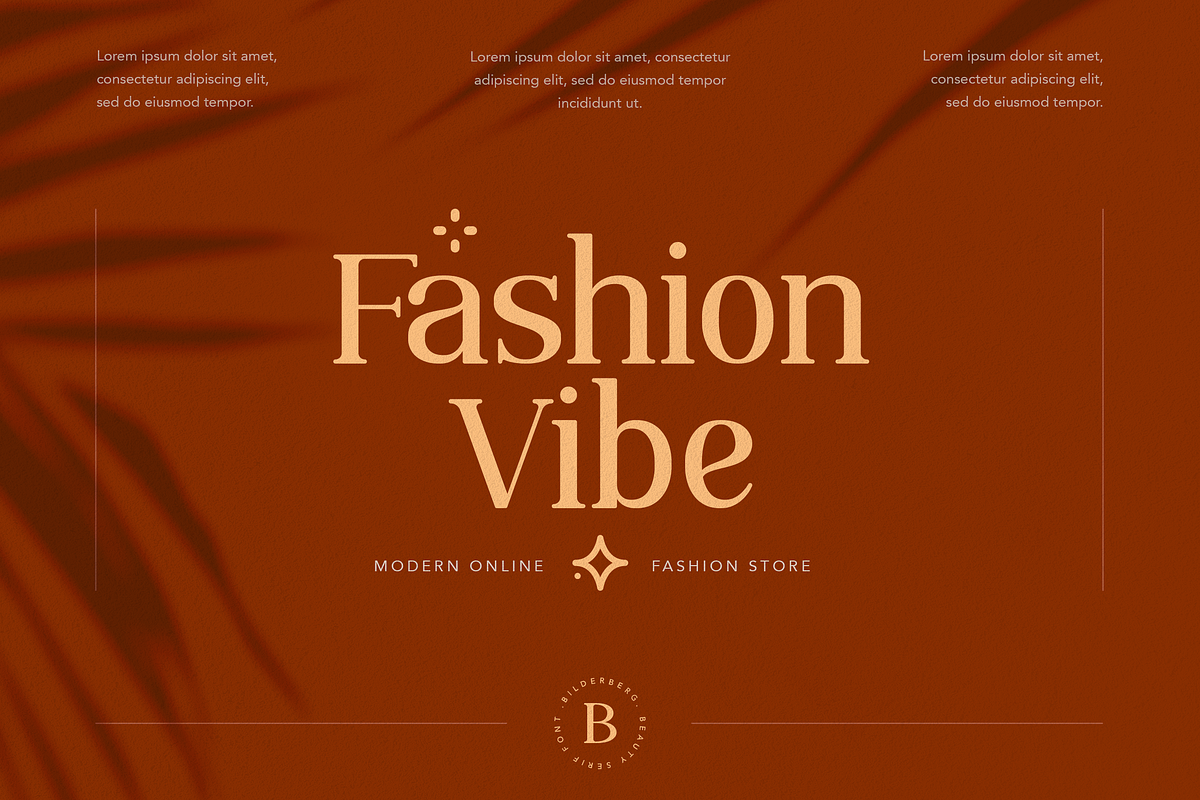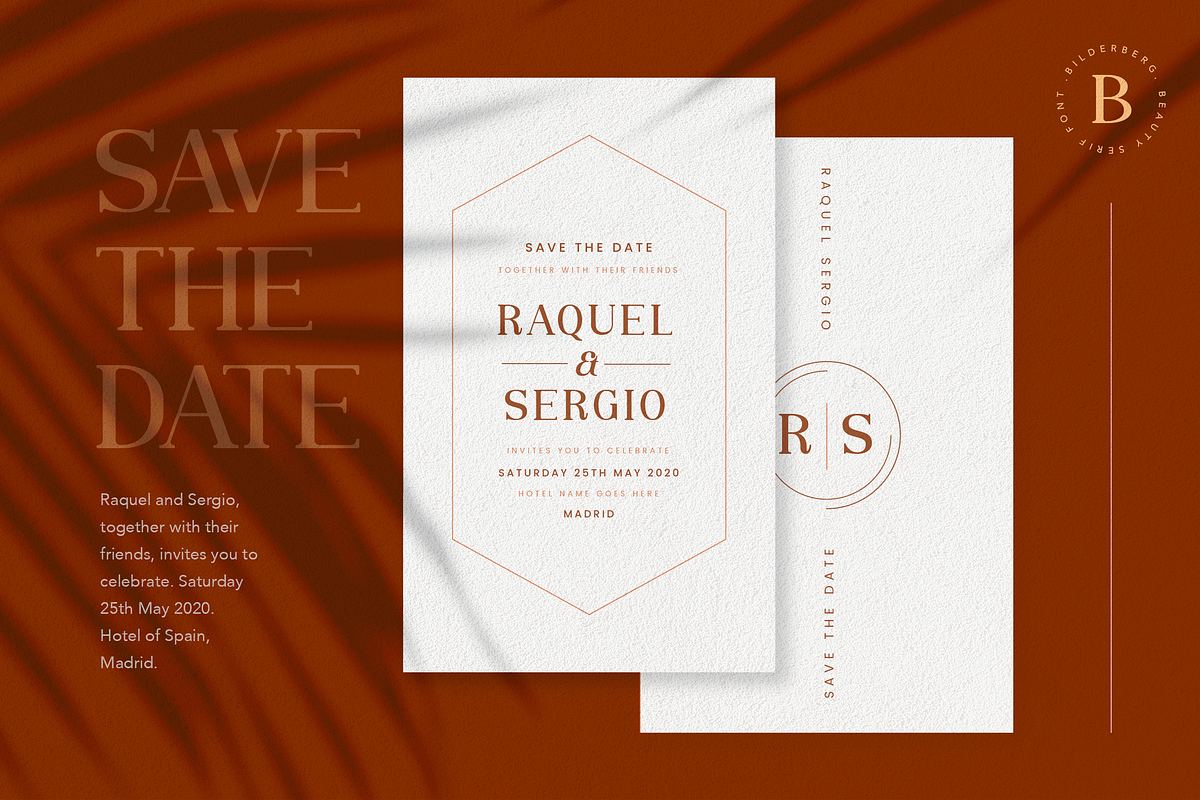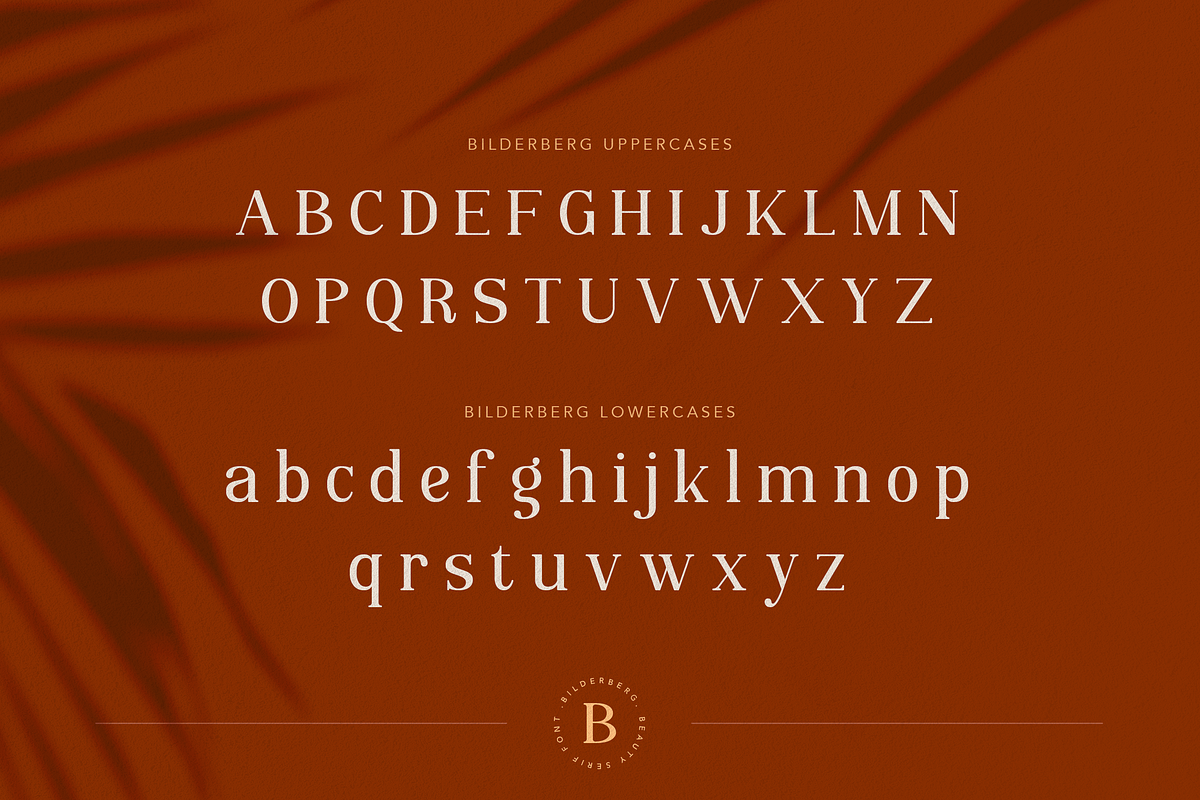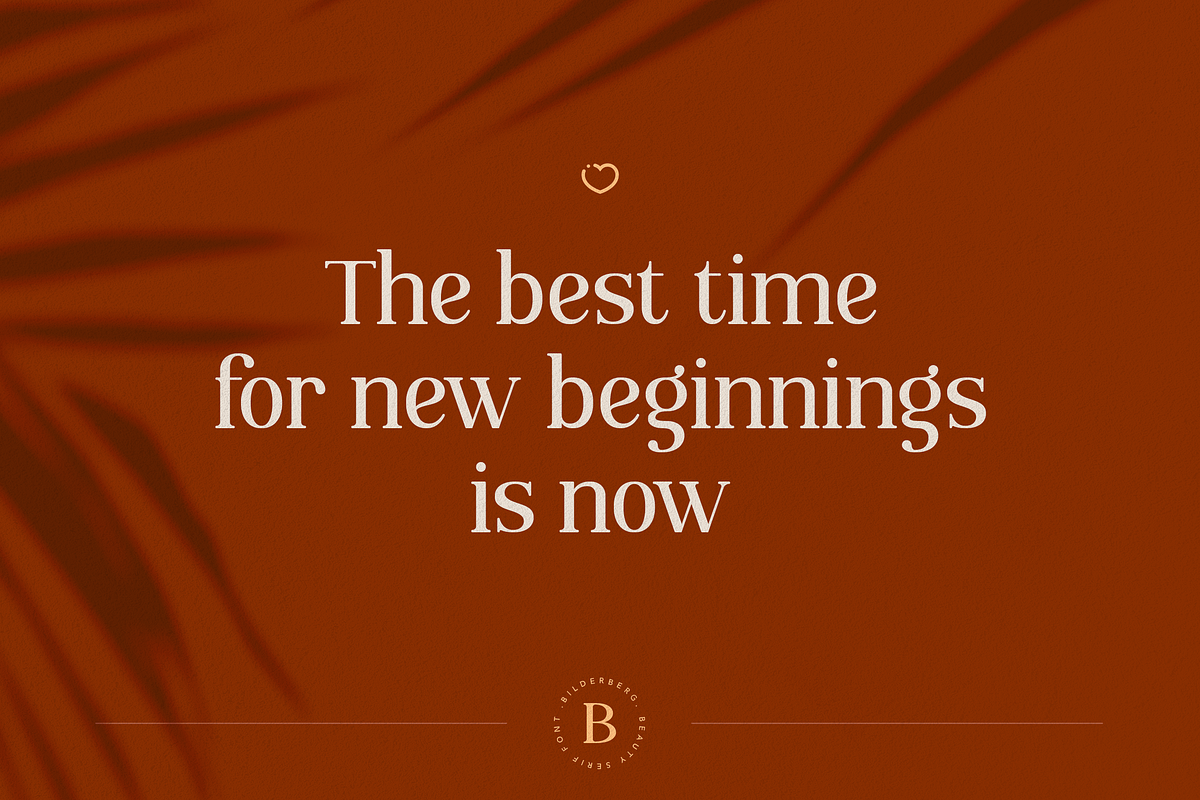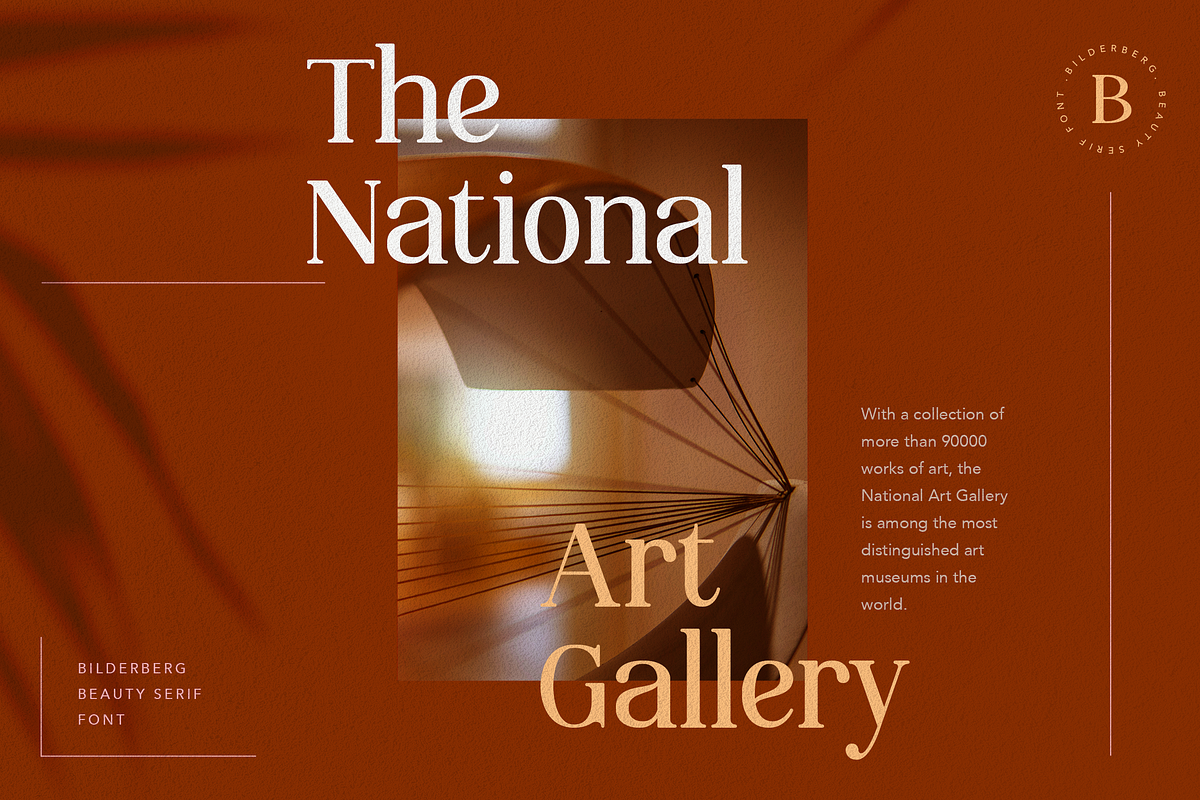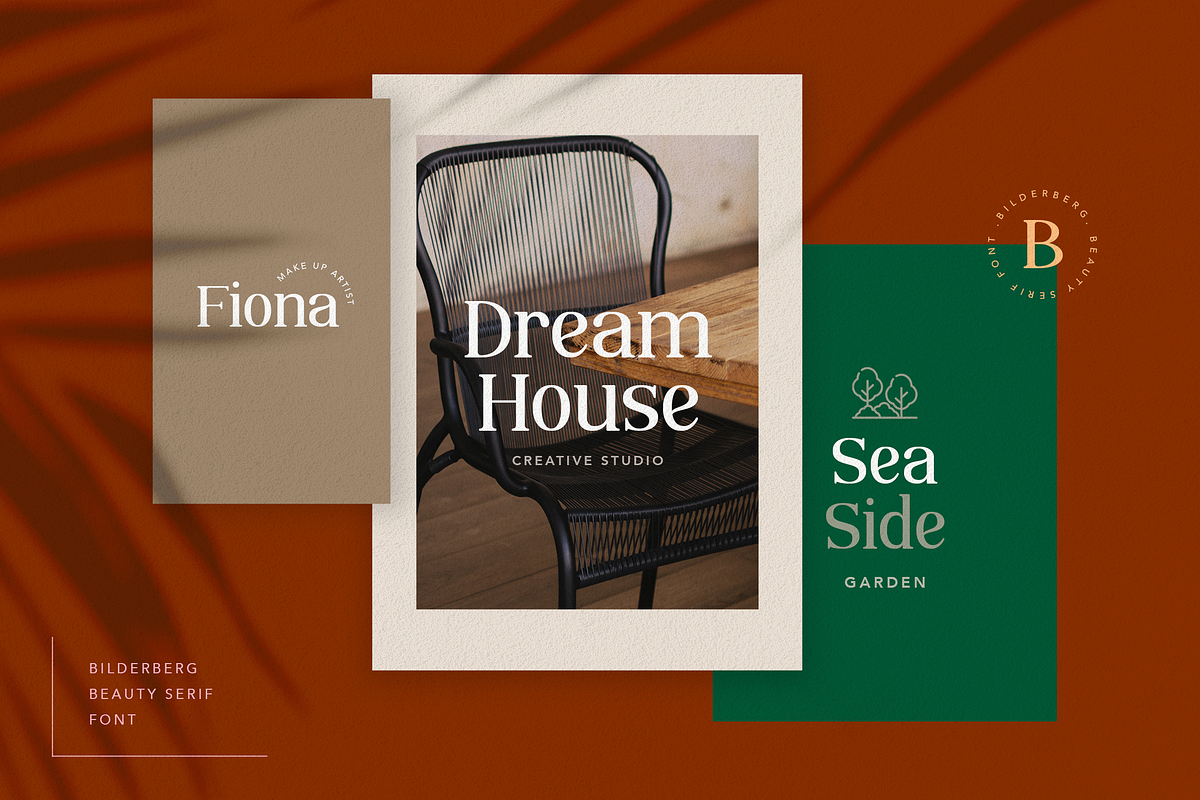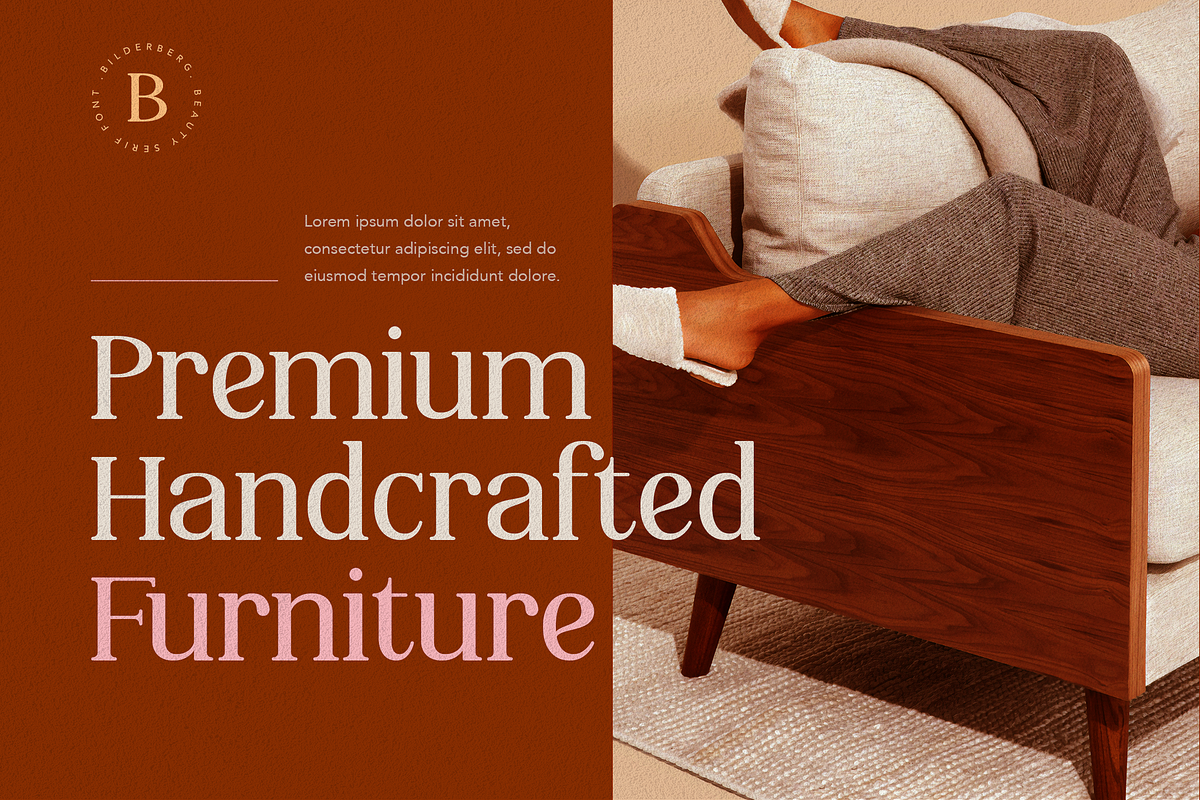
Bilderberg Beauty Serif Font
Introducing our new font Bilderberg - The Beauty Serif Font !!! ❤️
Bilderberg is a Beauty Minimalist Elegant and Modern vintage font with a regular and italic family and comes with multilingual support. It is a beautiful contemporary font.
Bilderberg is perfect for branding projects, logo, wedding designs, social media posts, advertisements, quoted text, coffee shop, product packaging, product designs, label, photography, watermark, invitation, stationery, fashion, boutique, furniture, and any projects, it makes with a high level of legibility. It's also a perfect fit for a beauty-themed - or a stylish text overlay to any background image.